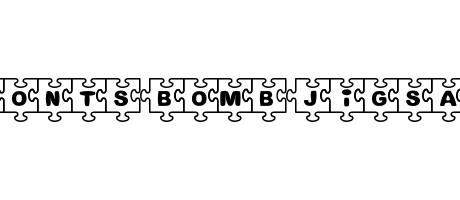
Fonts Bomb Jigsaw
Fonts Bomb JiGSAW: A bold, uppercase sans-serif font, exuding a playful yet assertive energy. Its blocky, slightly chunky letterforms are reminiscent of classic puzzle pieces, suggesting a game-like or construction-related theme. The consistent weight and spacing create a clean, impactful look, suitable for headlines and logos demanding attention. The slightly rounded edges soften the boldness, maintaining a friendly feel.